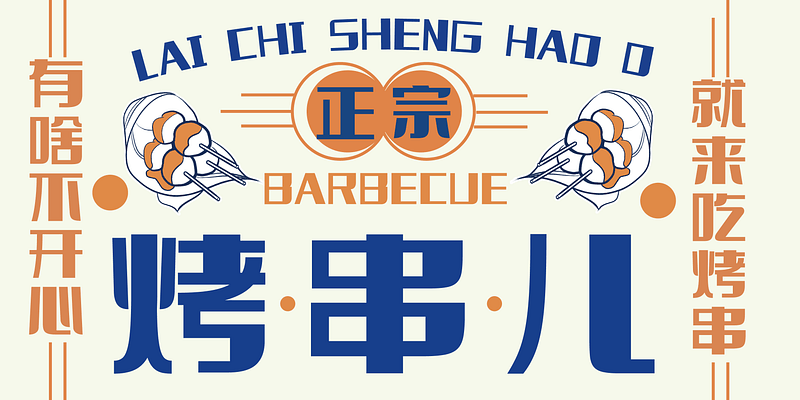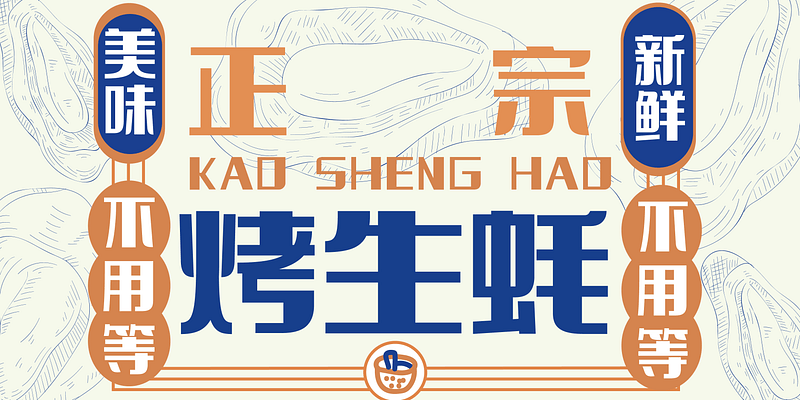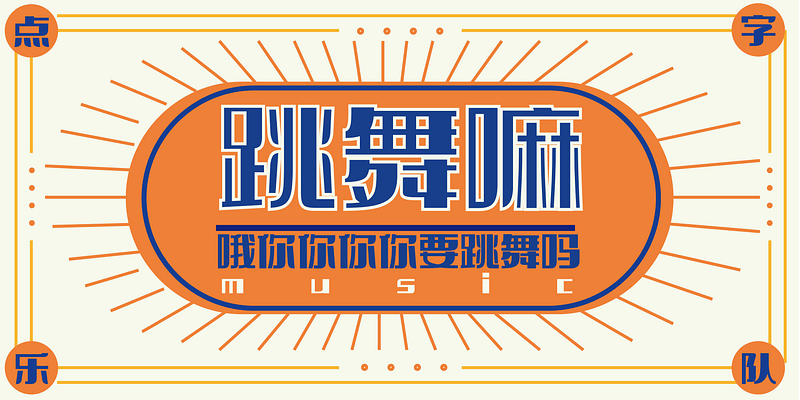
Combining the characteristics of the Republic of fine arts character stroke, designer exaggerates the variation in the contrast between the thickness of a single font, thus creating a unique artistic character interest. This font is overall square and full-bodied, a combination of rounded corners and right angles, soft and filled with a little fortitude. It also has a strong sense of strength, strong visual impact, clear rhythm and is full of artistic tension.